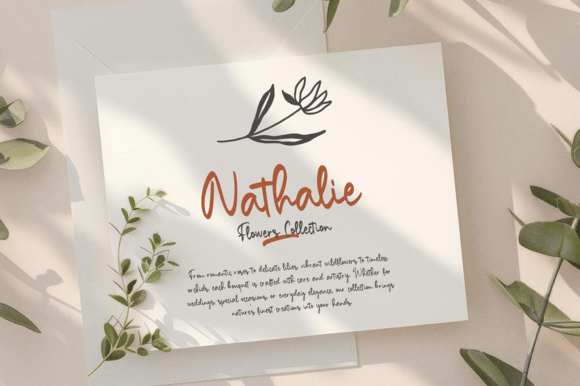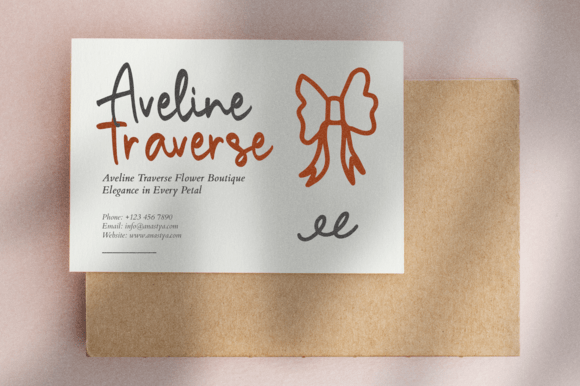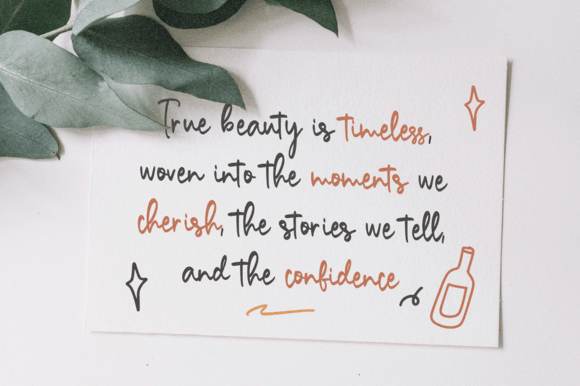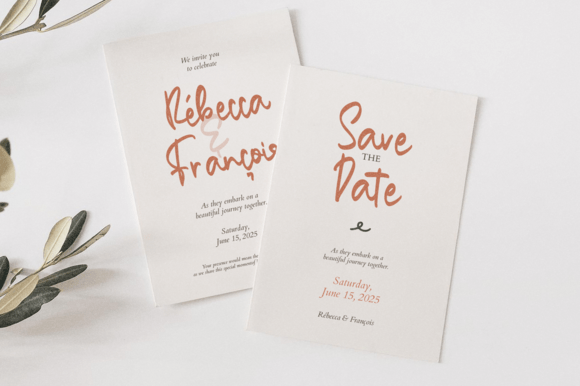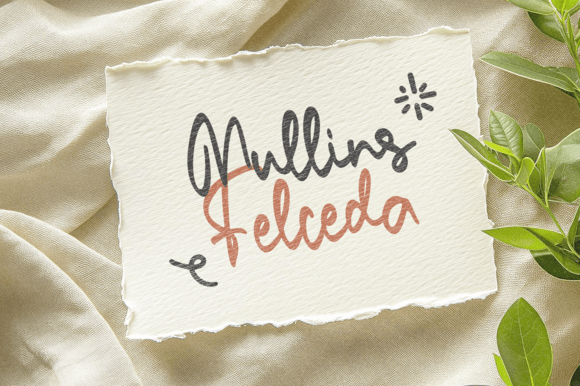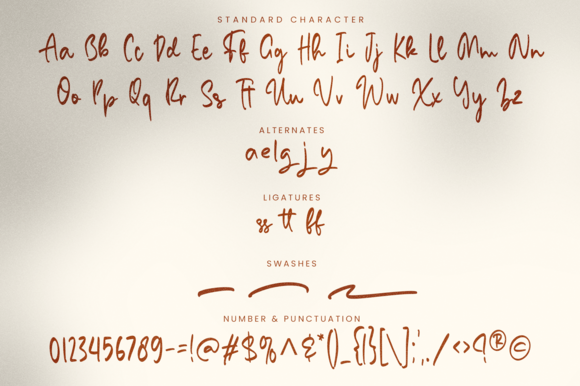
The Art of Typography: Bringing Personality to Your Message
Have you ever stared at a blank page, struggling to find the perfect words to express your creativity? That’s where the magic of typography comes in. A well-chosen font can elevate your message, making it stand out from the crowd and speak directly to your audience’s heart. At Bound Fish, we believe that fonts are the best way to convey a message with style and personality.
Our collection of beautiful, playful, and whimsical fonts is designed specifically for those who want a touch of handwritten, whimsical, and captivating script. With Bound Fish Font, you can add a personal touch to your designs, making them truly unique and memorable. Whether you’re a seasoned designer or a creative entrepreneur, our fonts will help you convey your message with confidence and flair.
As a designer, you know how crucial the right font can be in setting the tone and atmosphere of a project. With Bound Fish Font, you’ll have access to a wide range of styles and designs that will help you bring your vision to life. So why settle for ordinary when you can have extraordinary? Explore the world of Bound Fish Font and discover a new way to express your creativity.
Bound Fish Font Key Features
- Font Family: Bound Fish Font is a unique, hand-drawn font designed to evoke a sense of movement and energy.
- Character Count: The font contains a wide range of characters, including uppercase and lowercase letters, numbers, and punctuation marks.
- Unique Characteristics: Bound Fish Font features a dynamic, flowing design that is perfect for creating eye-catching headlines, titles, and other display text.
Designer Review: Bound Fish Font
Overall, I’m a bit torn with the Bound Fish Font. While it has some great features, there are also some areas that need improvement. ✨
- The bound fish font is full of character and personality, which can be a great asset for branding and creative projects.
- The unique and playful feel of the font can help to add visual interest and capture the attention of the viewer.
- The font is highly customizable, which means that it can be easily adapted to fit a wide range of design needs.
- The font may be too ornate or busy for some designs, which could make it difficult to read or understand.
- The bound fish font may not be suitable for corporate or formal projects, where a more traditional or straightforward font is often preferred.
- The font can be quite quirky, which may not appeal to all designers or brands.
- ⚠️ The font may not be suitable for very small text sizes, as the details can become difficult to read.
Overall, I think the Bound Fish Font is a great choice for designers who want to add a bit of whimsy and personality to their projects. However, it’s not for every project or brand, and it may require some careful consideration to get the most out of it.
The Bound Fish Font is ideal for creative projects, such as:
- Invitations and event graphics
- Food and drink branding
For best results, use the Bound Fish Font in conjunction with bold, bright colors and playful design elements.